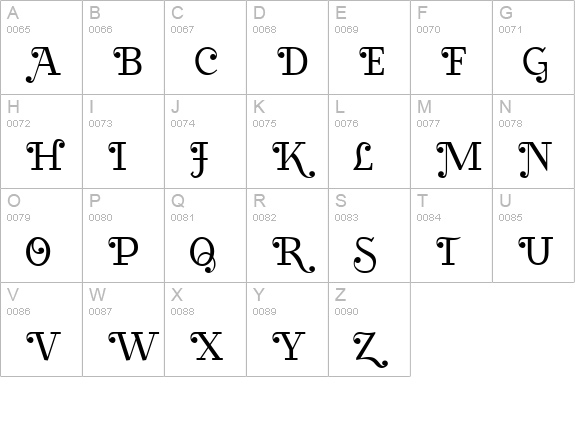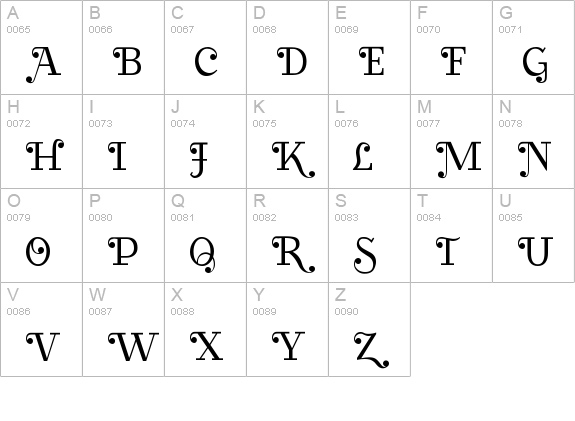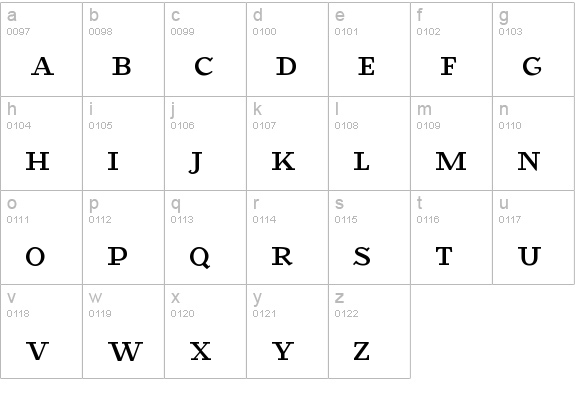
BearButteT Special Font Details
BearButteT Special font is a stunning and unique typeface that exudes elegance and sophistication. With its bold and eye-catching design, this font is perfect for a wide range of design projects, from logos to branding to social media graphics. The intricate details and stylish curves of BearButteT Special font make it a versatile choice for both print and digital applications. The best part? BearButteT Special font is available for free download at FontsMarket.com. This means you can easily add this beautiful font to your collection without any cost. Don't miss out on this opportunity to enhance your designs with the charm and character of BearButteT Special font. Download it today and elevate your creative projects to a whole new level.